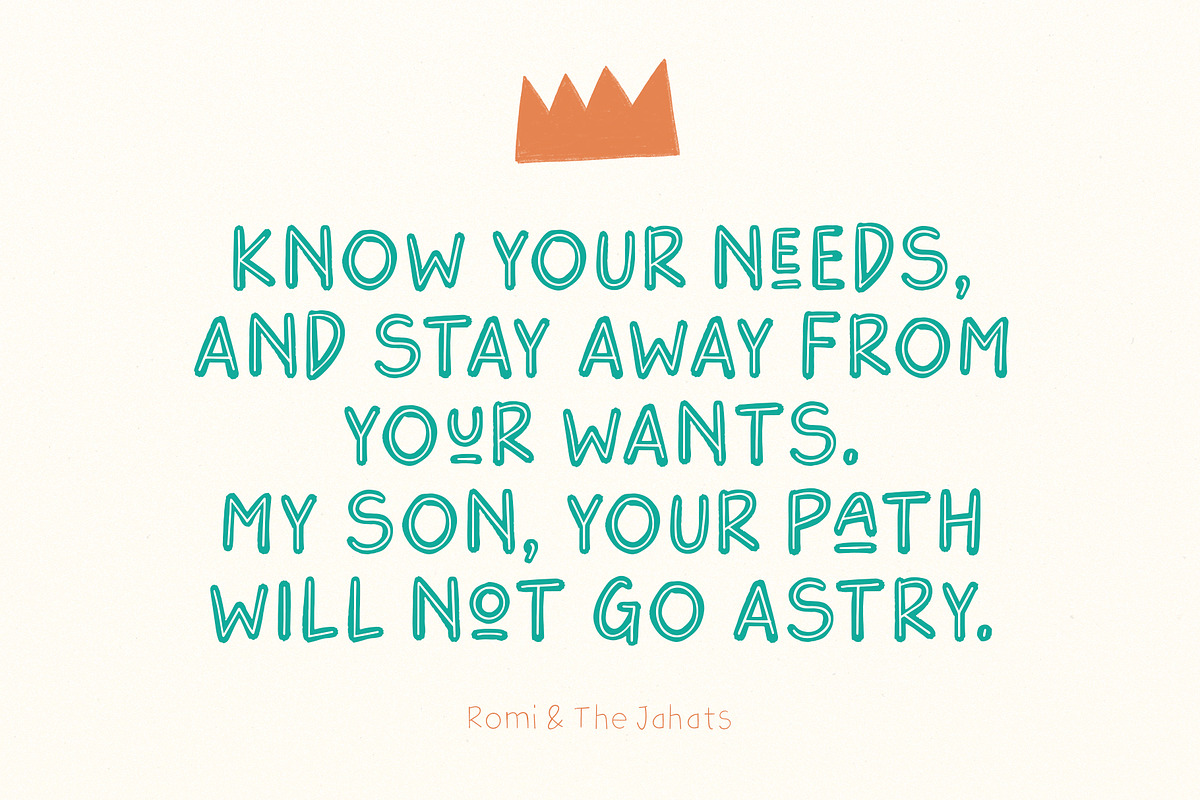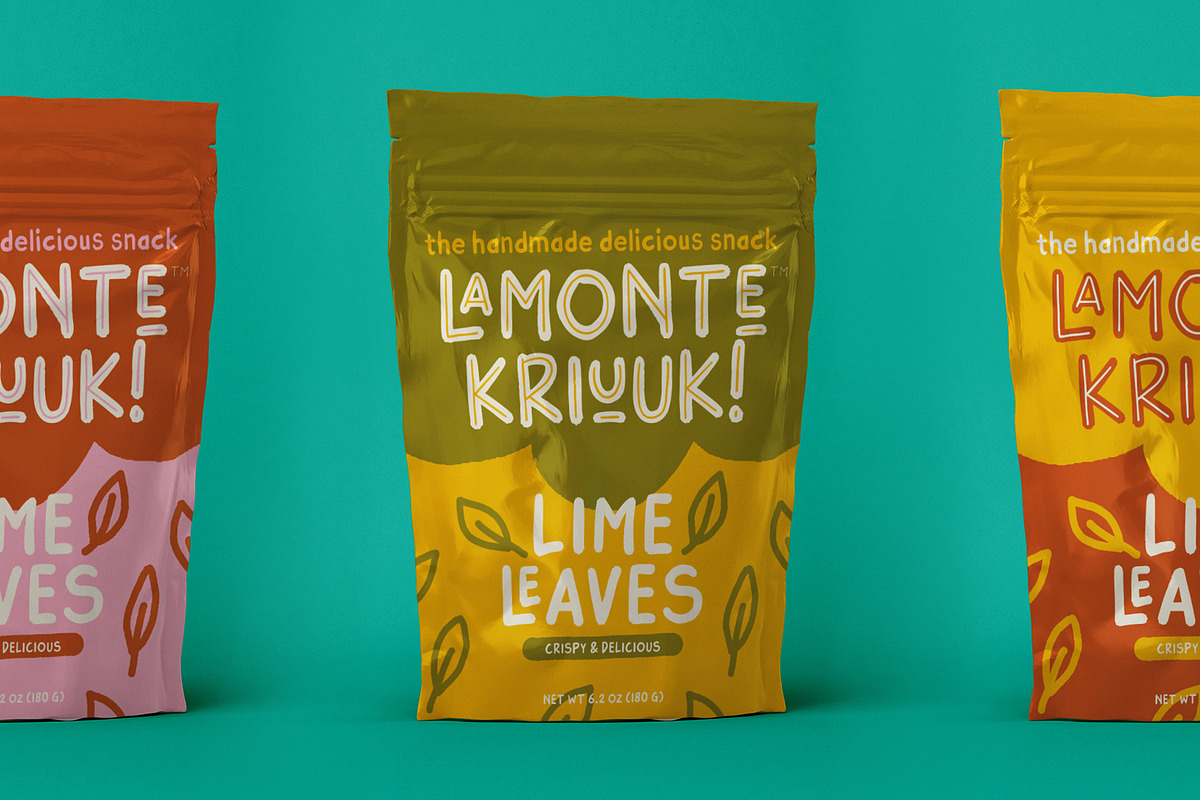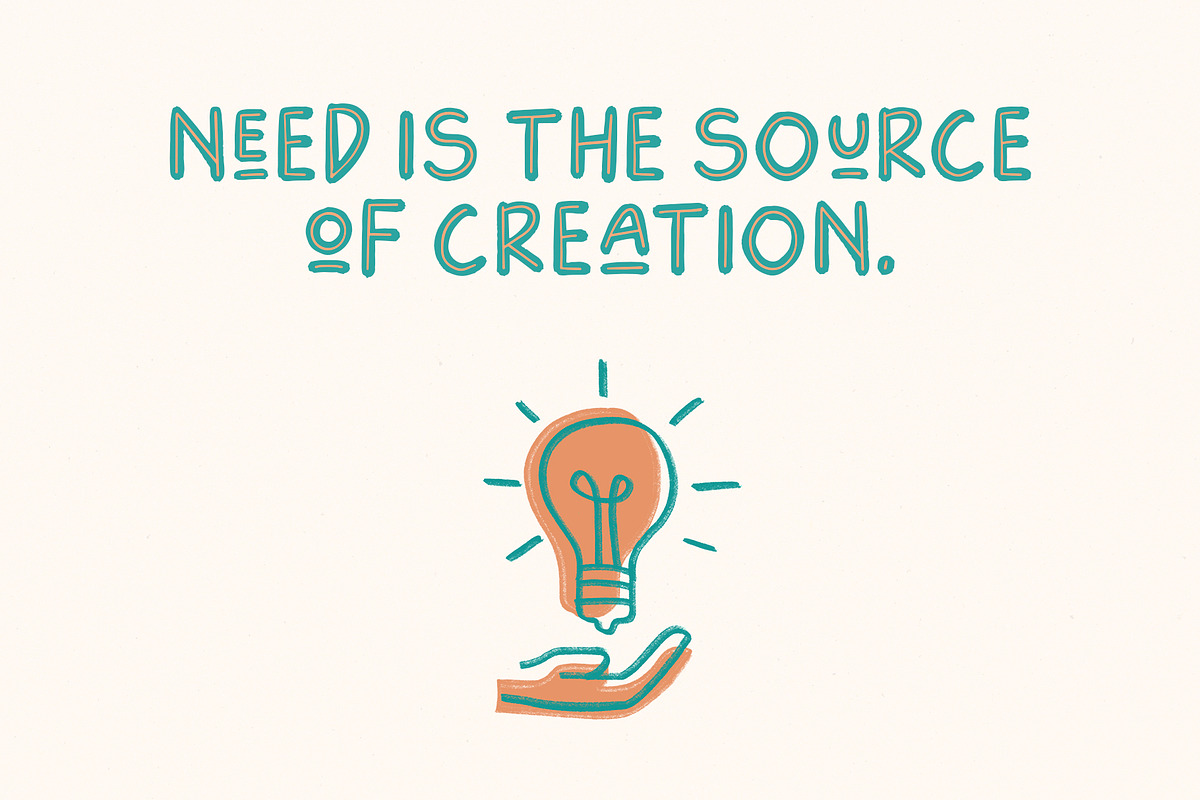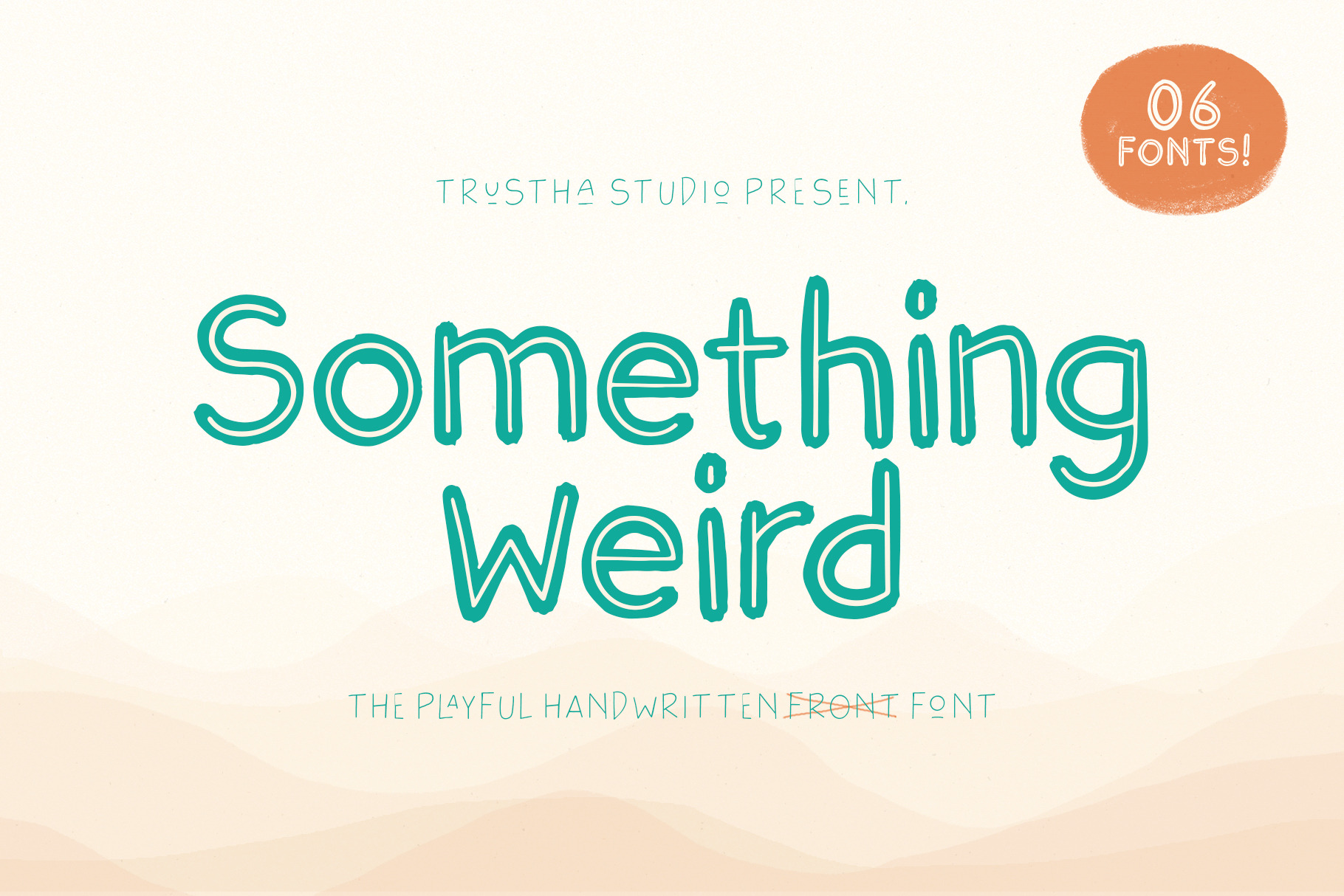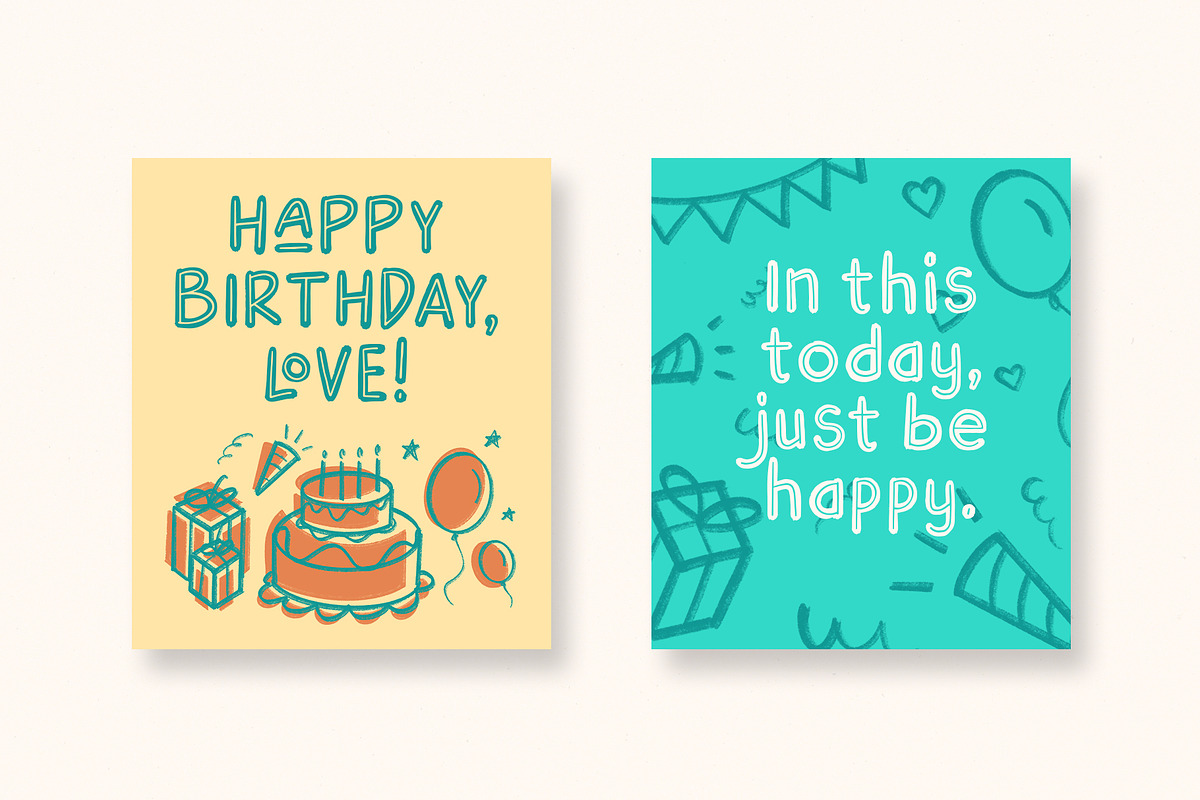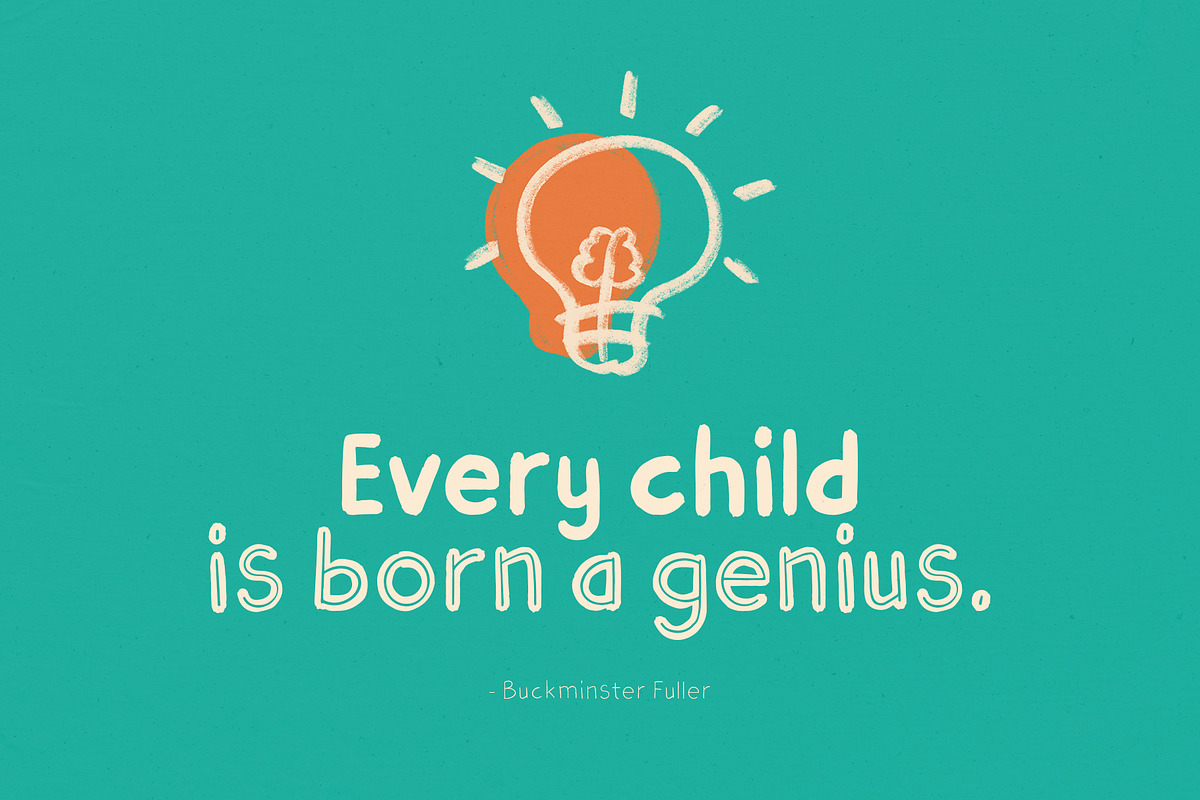
Something Weird Font
Something Weird is a playful handwritten font, written with fun and relaxed. Something Weird comes with 400+ glyphs, which also include multilingual languages.
Something Weird is perfect for headlines, branding, packaging, quotes, and many more.
- Number, punctuation & symbols
- Stylistic sets
- International characters (Multilingual)